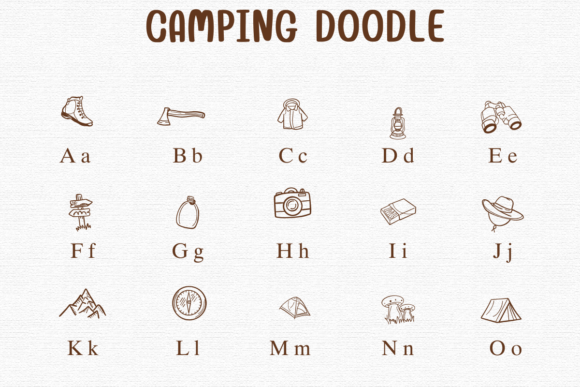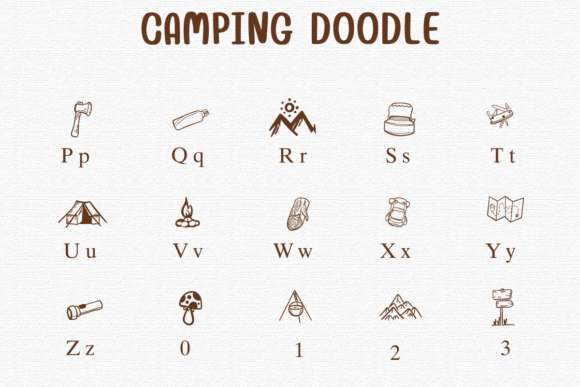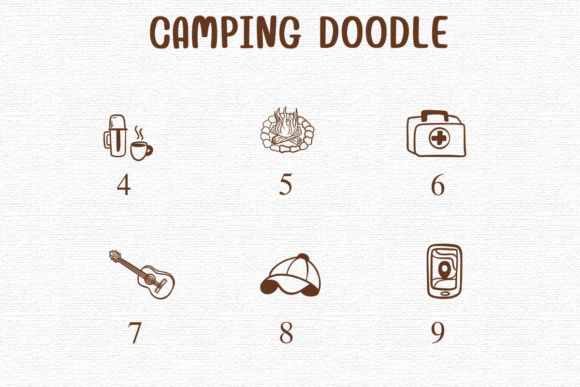
Camping Doodle Font
Camping Doodle is a rustic dingbats font filled with hand-drawn camping icons like tents, backpacks, maps, campfires, tools, and nature gear. Perfect for outdoor event flyers, adventure blogs, or nature-themed merchandise, it captures the spirit of the great outdoors.